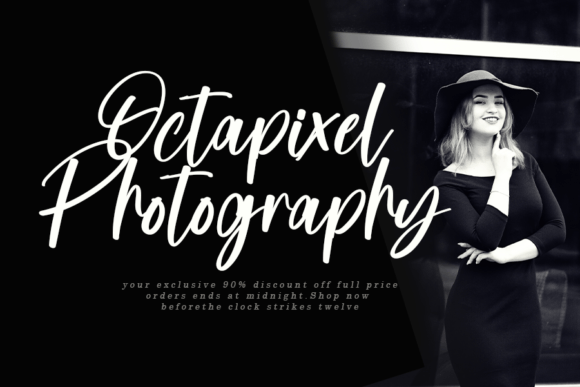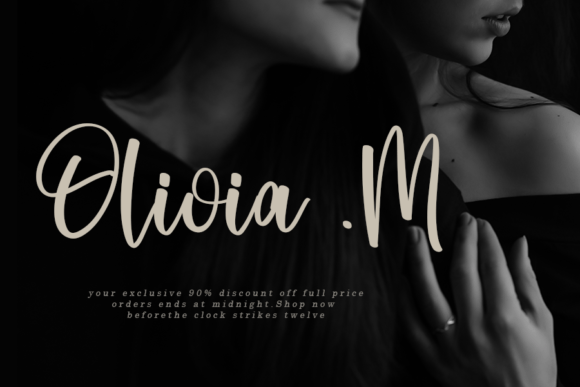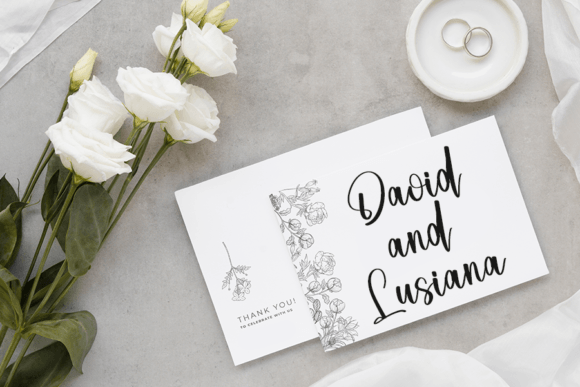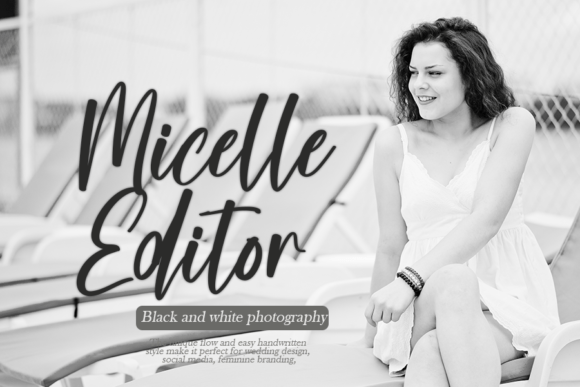
About Darling Font
A Neat and Beautiful Handwritten Font
The Darling Font is a neat and beautiful handwritten typeface that exudes elegance and charm. With its delicate strokes and timeless style, it is ideal for a variety of creative projects. Whether you are designing wedding invitations, logos, greeting cards, or other personal designs, the Darling Font adds a refined touch to your work, ensuring your projects stand out with sophistication.
Perfect for Wedding Invitations and Special Events
If you’re creating wedding invitations or special event stationery, the Darling Font is a perfect choice. Its handwritten design gives your invitations a personalized and elegant feel, making them feel unique and memorable. Whether it’s a wedding, birthday, baby shower, or other significant event, this font ensures your invitations stand out with its timeless charm and beauty.
Ideal for Logos and Branding
The Darling Font also works beautifully for logos and branding materials. Its elegant yet readable style ensures your brand stands out while maintaining a professional and distinct identity. Whether you’re designing a company logo, brand name, or marketing materials, the font’s graceful handwritten style offers a perfect blend of creativity and professionalism.
Great for Greeting Cards and Personalized Messages
The Darling Font is perfect for creating greeting cards, thank you notes, holiday messages, and any other personalized designs. Whether you’re creating for Christmas, Valentine’s Day, or any other occasion, this font adds a heartfelt, personal touch to your messages. Its fluid strokes ensure that your text is both inviting and charming, making your cards feel extra special.
Versatile for Multiple Design Applications
The Darling Font is incredibly versatile, making it ideal for a variety of design projects. Whether you’re working on flyers, website headers, posters, business cards, or social media graphics, this font can adapt to different contexts. Its neat yet flowing handwritten style ensures it works beautifully across both print and digital media, making it perfect for both business and personal projects.
Elegant, Timeless, and Legible
Despite its elegant design, the Darling Font remains legible and easy to use. Its well-balanced structure and smooth lines ensure that your text is clear and easy to read, even when used for longer passages or smaller sizes. Whether you’re creating headlines, captions, or body text, this font combines beauty with readability, ensuring your designs always look polished and professional.
The Darling Font is designed to be easy to use and works seamlessly across different design software. Whether you’re designing logos, invitations, stationery, or advertisements, this font integrates smoothly into your creative workflow. Its simple elegance ensures that it can be used for both large text and small body text, making it suitable for various design needs.
Add Elegance and Charm to Your Designs with Darling Font
If you’re looking for a neat, elegant, and timeless handwritten font to enhance your designs, the Darling Font is the perfect choice. Whether you’re working on wedding invitations, logos, greeting cards, or social media posts, this font brings a charming, refined touch to your work. Elevate your designs with the Darling Font and create spectacular, memorable projects that will leave a lasting impression.